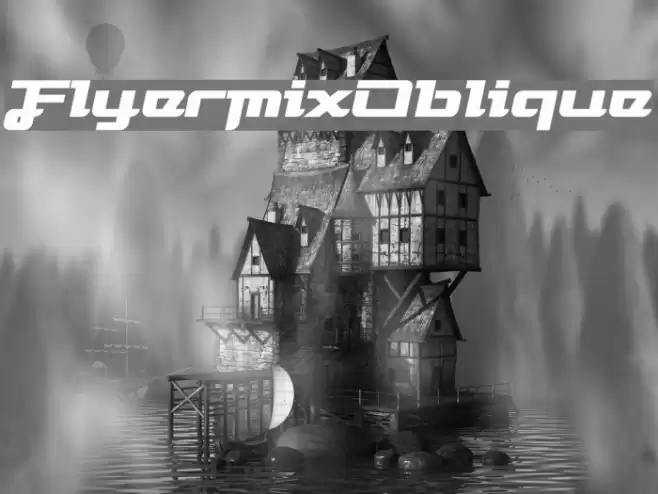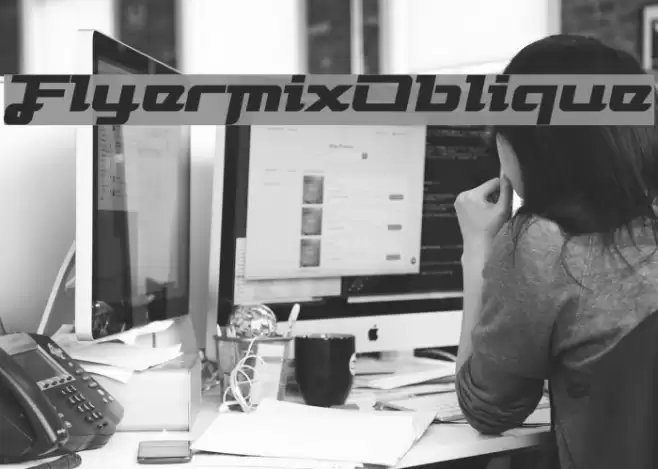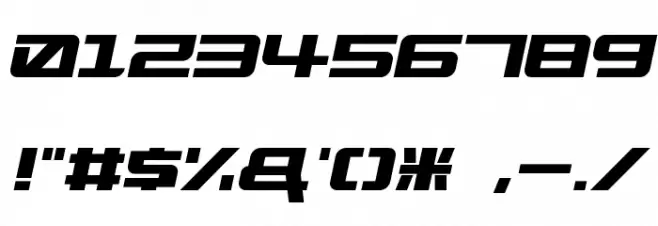
FlyermixOblique Font
FlyermixOblique Description
This font features a bold and dynamic style with a futuristic and angular design. The characters are slanted, giving an oblique appearance that suggests motion and speed. Each letter is crafted with sharp edges and geometric shapes, creating a modern and edgy look. The uppercase and lowercase letters maintain a consistent style, with unique variations in certain characters that add to its distinctiveness. Numbers and special characters are designed to match the overall aesthetic, ensuring a cohesive appearance across all text elements. The font's strong presence makes it ideal for attention-grabbing designs.
A bold, futuristic font with angular, oblique characters from Uncategorized fonts.
- Proposed Projects: Perfect for sci-fi themed designs, video game titles, technology branding, and dynamic posters.